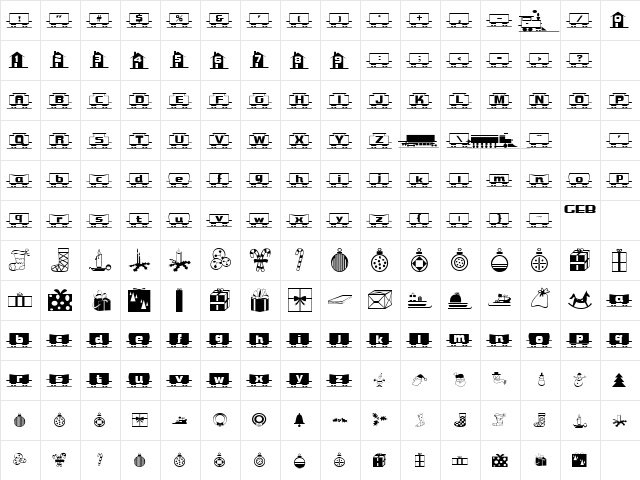
TQF_FreightTrain Regular Font Preview
TQF_FreightTrain Regular
Design Context for TQF_FreightTrain Typeface
TQF_FreightTrain is a composed and adaptable typeface that performs quietly and consistently across a wide range of design contexts.